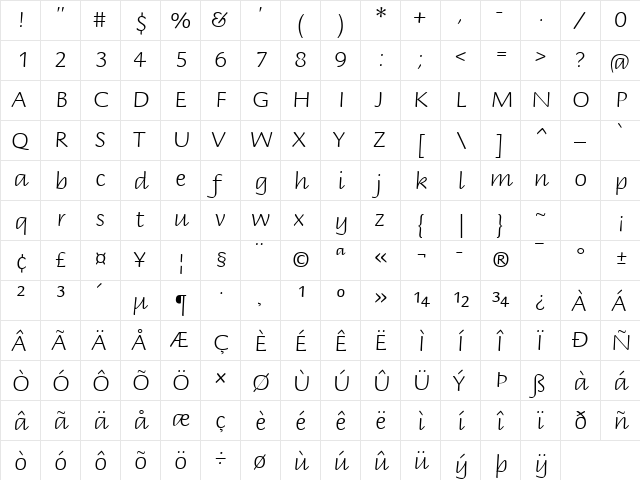
Briem Script Std Light Regular
| Designer | Gunnlaugur SE Briem |
Design Context for Briem Script Std Light Typeface
Briem Script Std Light brings a calligraphic fluidity to the page — its connecting strokes and expressive curves give it an unmistakably human quality. The delicate stroke weight brings airiness and refinement to layouts.
Font Pairing: Combine Briem Script Std Light with a simple geometric sans for maximum contrast — the tension between flowing curves and clean structure is a classic typographic pairing.
Pro Tip: Use Briem Script Std Light for short runs of text — names, titles, or taglines. Extended body copy in script faces tires the eye quickly.